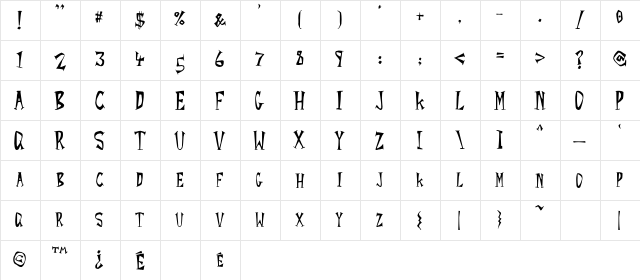
Rocket YoYo Regular
Design Context for Rocket YoYo Typeface
Rocket YoYo is a composed and adaptable typeface that performs quietly and consistently across a wide range of design contexts.